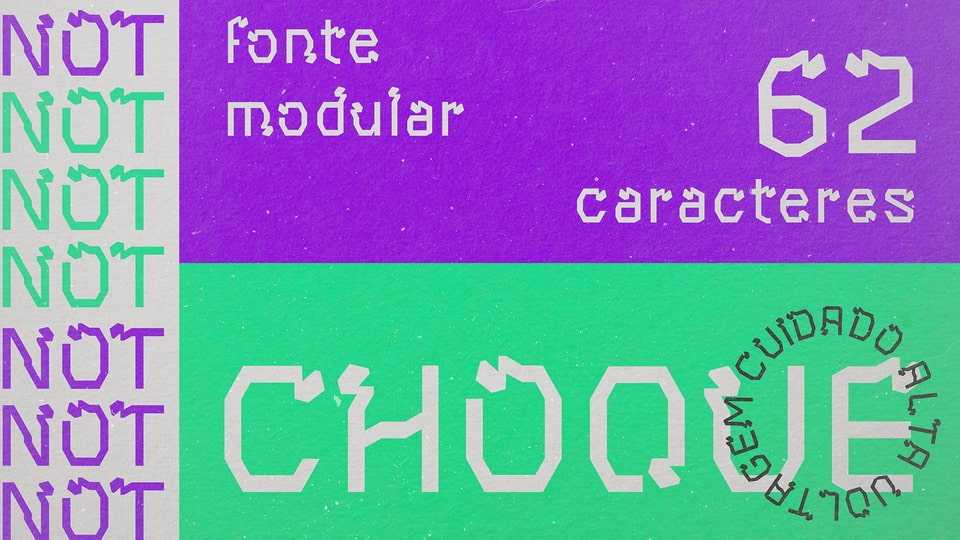
Download Choque font, a modular geometric display typeface a with unique grid structure. Choque font is best for posters, graphic prints and typography compositions.
Designer: Natália Oliveira